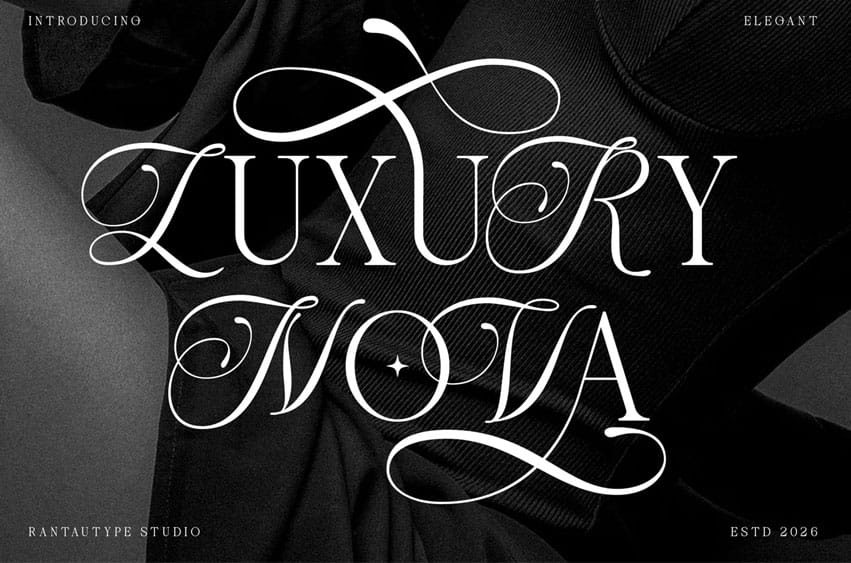
Luxury Nova Font is a serif font with graceful character made by rantautype studio. Luxury nova come with stylish alternate you can mix to create awesome design.
Ronedia is a perfectly choice for any creative endeavor, creating, modern, lifestyle design such as logotype, title, cover, branding, invitations, wedding designs, display and magazine, social media posts, advertisements, printed quotes, product packaging, corporate brand, product designs, labels, photography, watermarks, special events and any other project with elegant touch.
- Numberial and Functional